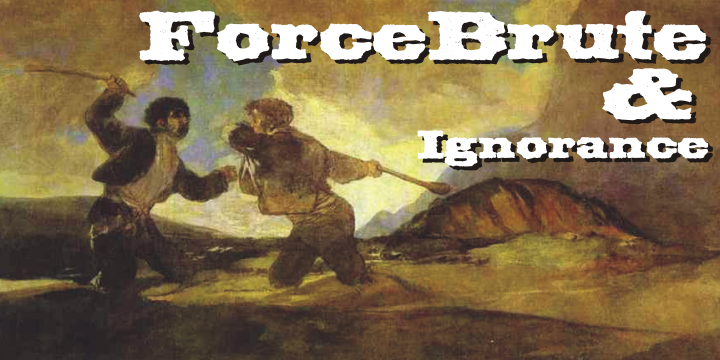
Force Brute & Ignorance
Designed by Paulo W, Force Brute & Ignorance is a slab serif and wood type font family published by Intellecta Design.
A strong font, eroded visual, from an old wood type classic font.